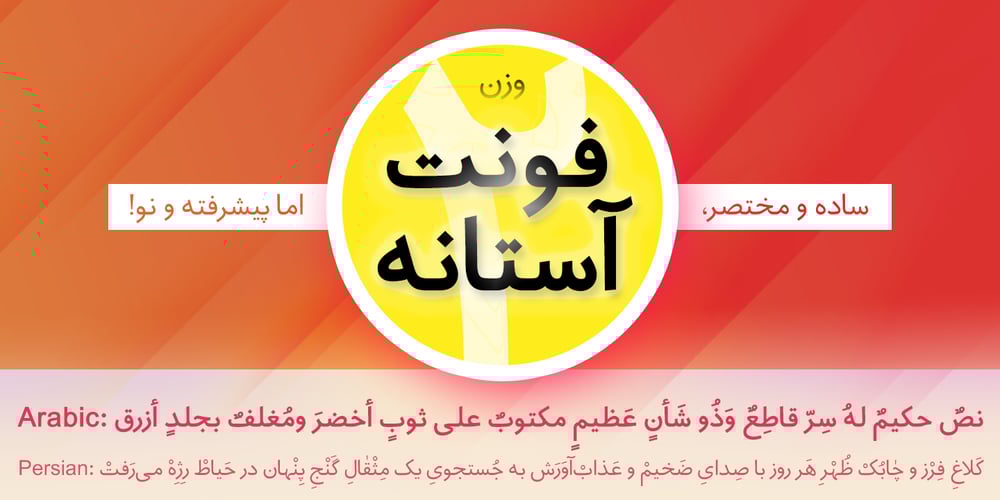
Astaneh Font Family was designed by Shahab Siavash and published by Si47ash Fonts. Astaneh contains 2 styles and family package options. Super clean, yet sophisticated! Astaneh with its 2 weights brings a modern and clean sans serif Arabic/Persian typeface to life! Shahab Siavash, the designer has done more than 30 fonts and got featured on Behance, Microsoft, McGill University research website, Hackernoon, Fontself, FontsInUse,… Astaneh text and headline font which is one of his latest designs, already got professional typographers, lay-out and book designers’ attention as well as some of the most recognizable publications in Arabic/Persian communities.